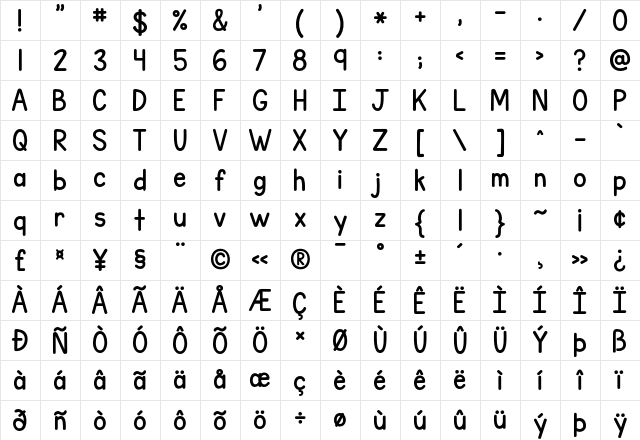
KG Perfect Penmanship Regular
Foundry: Kimberly Geswein
Designer: Kimberly Geswein
Design Context for KG Perfect Penmanship
KG Perfect Penmanship is a composed and adaptable typeface that performs quietly and consistently across a wide range of design contexts.